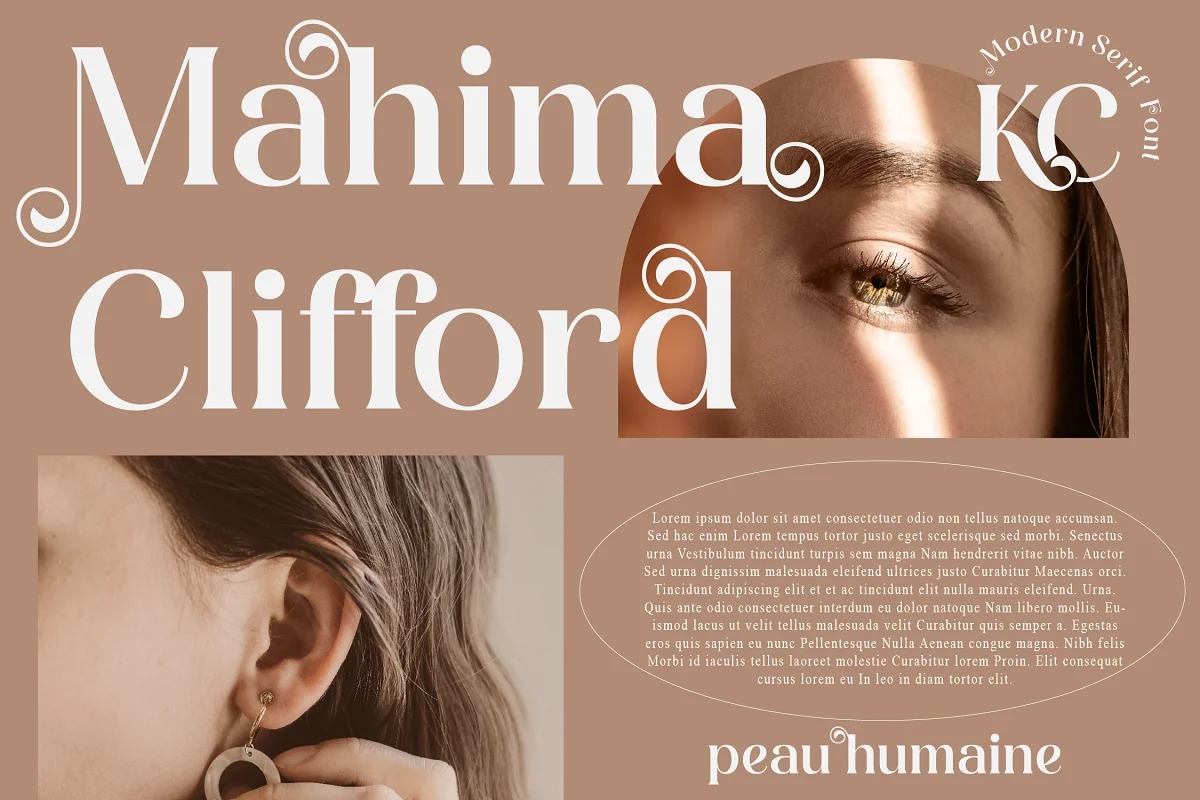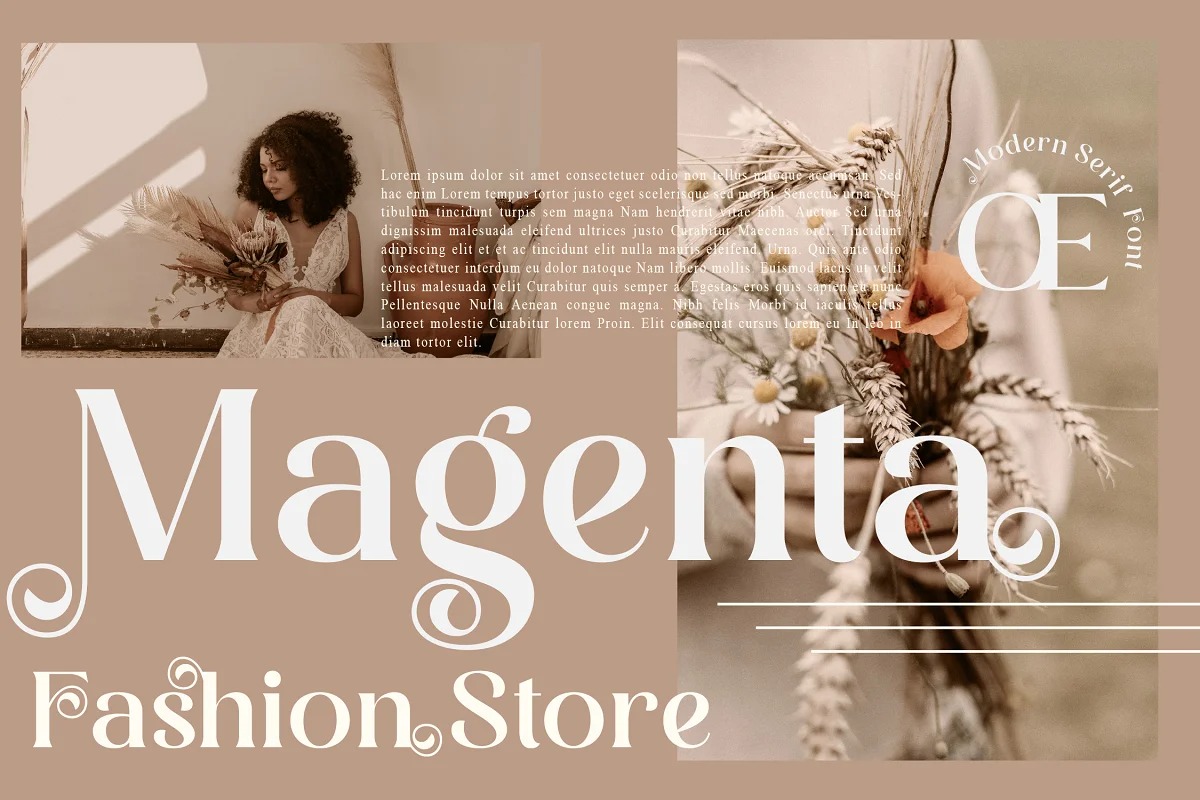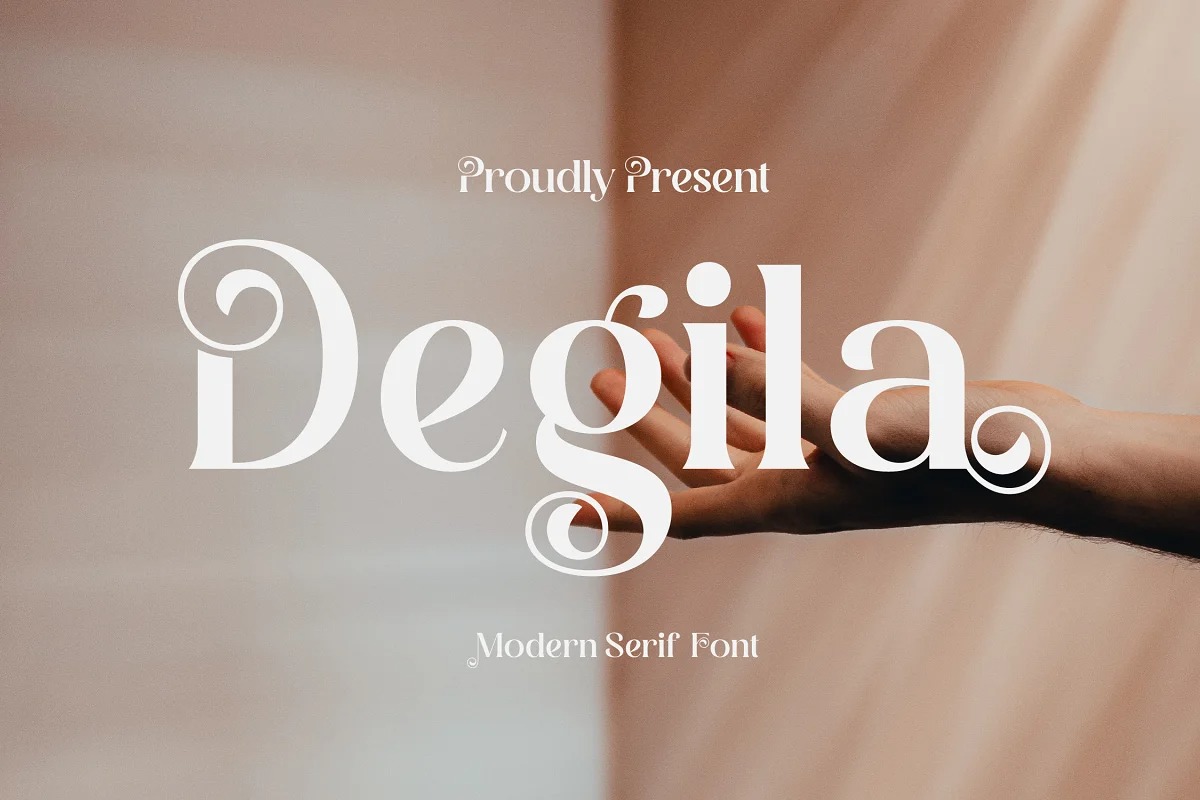
Degila Serif Font
This is a classic and timeless serif typeface that looks amazing and classy in every context. It’s designed and shared by Storytype Studio. This typeface is perfect for an elegant & luxury logo, book or movie title design, fashion brand, magazine, clothes, lettering, quotes, and so much more.